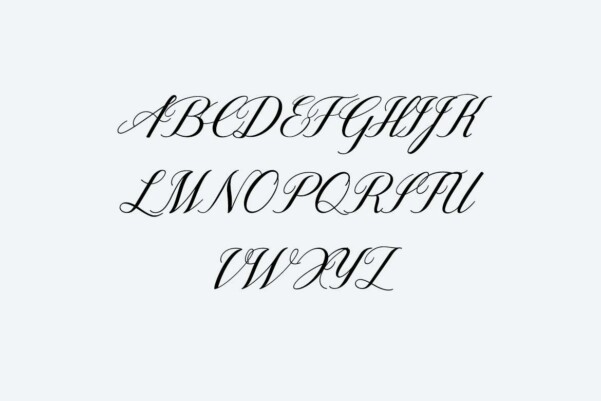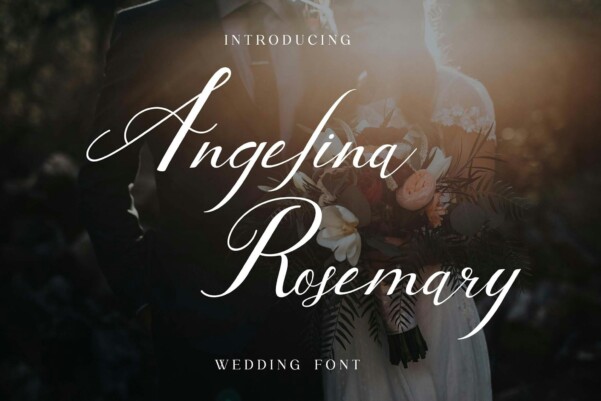
Angelina Rosemary Font
Designer: uicreativenet
Angelina Rosemary Script Wedding Font that is beautiful, classy, ​​elegant and modern. This font is perfect for a wide variety of projects, such as signature, stationery, logo, wedding, typographic quotes, magazine or book covers, website headers, branding , packaging design, etc. Additionally, fashion-related branding or editorial design exhibits both masculine and feminine qualities